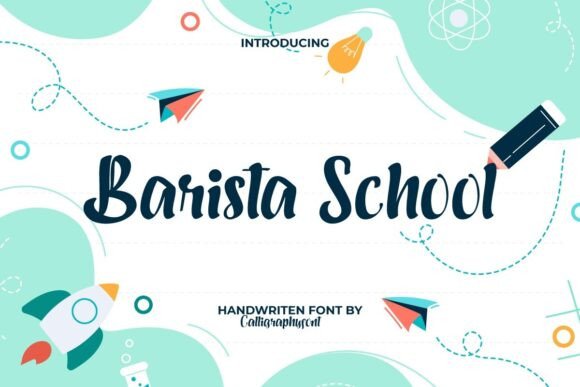
Introducing Barista School Font: The Perfect Handwritten Brush Font for Your Creative Projects
In the world of typography, handwritten fonts have gained immense popularity for their unique and personal touch. If you’re looking for a font that combines modernity with a fun, casual vibe, look no further than Barista School Font. This beautiful handwritten brush font is designed to bring a fine brush pen style to your creative projects, making it perfect for a wide range of applications.
What is Barista School Font?
Barista School Font is a casual, beautiful handwritten brush font with a fine brush pen style. Its modern yet fun design makes it an ideal choice for projects that require an original hand lettering style. With its bold letters and dynamic, free-flowing characters, this font is sure to make a statement in any project.
Endless Creative Possibilities with Barista School Font
The versatility of Barista School Font is one of its standout features. This font can be used in a wide range of projects, including:
- Advertisement boards
- Branding and logos
- Brochures and business cards
- Covers and headlines
- Invitations and labels
- Posters and product packaging
- Pamphlets and quotes
- Screen prints and signage
- Stationery and stickers
- Titles and websites
Industries That Can Benefit from Barista School Font
Barista School Font is not limited to a specific industry or niche. Its attractive pen writing style makes it suitable for various industries, including:
- Accessories and merchandise
- Authors and writers
- Clothing brands and fashion designers
- Content creators and bloggers
- Packaged drinks and food manufacturers
- Event organizers and planners
- Graphic designers and artists
- Handicraft and handmade product sellers
- House furniture and interior designers
- Playgrounds and educational institutions
- Photography and printing services
- Publishing and media companies
- Schools and universities
- Social media content creators
- Students and teachers
- Writers and publishers
Benefits of Using Barista School Font
So, why choose Barista School Font for your creative projects? Here are just a few benefits:
- Unique and original style: Barista School Font offers a fresh and distinctive hand lettering style that will set your project apart from others.
- Versatility: This font can be used in a wide range of projects and industries, making it a valuable addition to your font library.
- Ease of use: Barista School Font is easy to read and works well in both digital and print formats.
- High-quality design: With its fine brush pen style and dynamic characters, this font is designed to produce high-quality results.
Tips and Tricks for Using Barista School Font
To get the most out of Barista School Font, here are a few tips and tricks:
- Experiment with font sizes: Barista School Font works well in a variety of font sizes, from large headlines to smaller body text.
- Pair with other fonts: Try pairing Barista School Font with other fonts to create a unique and visually appealing combination.
- Use in digital and print formats: This font works well in both digital and print formats, making it perfect for a wide range of applications.
In conclusion, Barista School Font is a versatile and beautiful handwritten brush font that is perfect for a wide range of creative projects. With its modern yet fun design, this font is sure to make a statement in any project. Whether you’re a graphic designer, artist, or simply a DIY enthusiast, Barista School Font is a valuable addition to your font library.